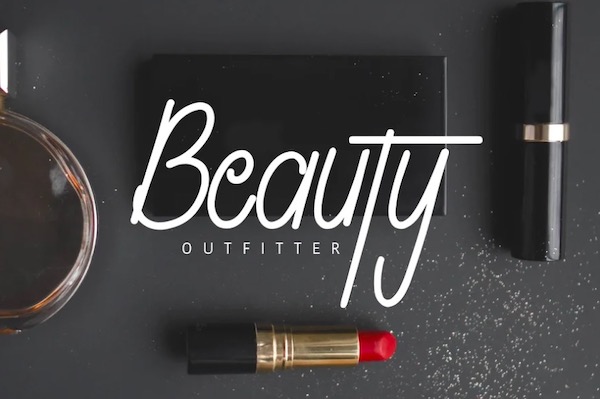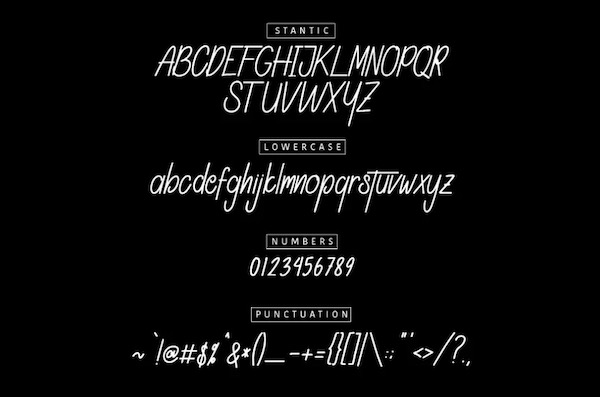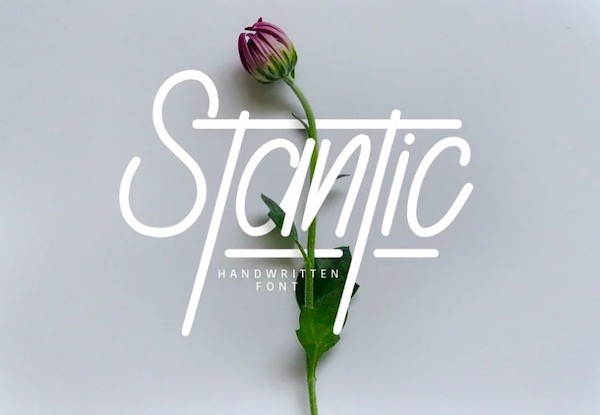
Stantic Font was created and shared by Maulana Creative and it will give your projects an authentic smooth feel. Moreover, it will look perfect for many design projects such as website header, branding, stationery, typography quotes, logo, magazine or book cover, clothing, packaging design, and more.
Stantic Handwritten Font